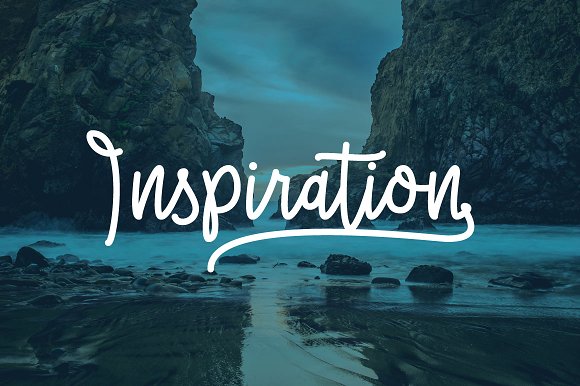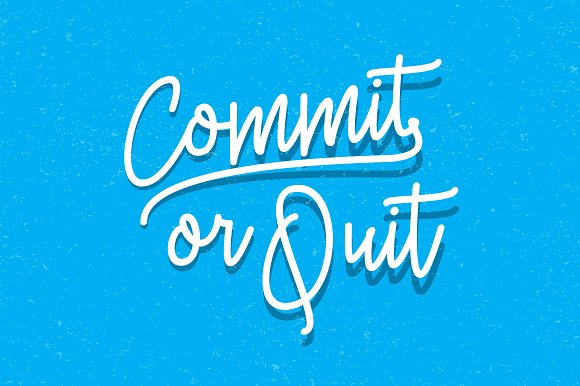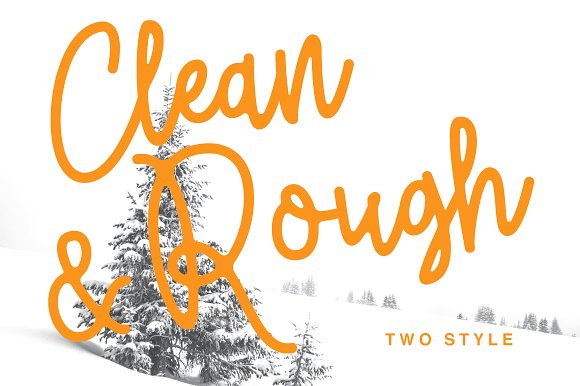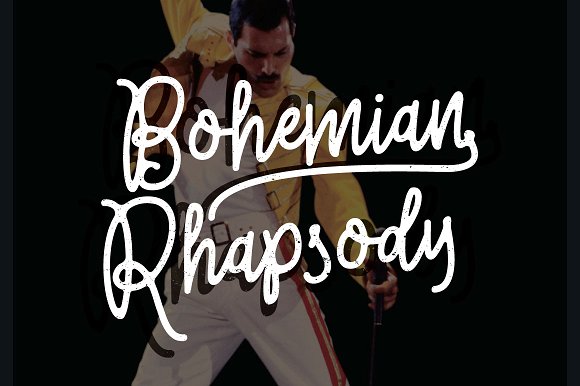
Prasto Font
About Prasto Font
Prasto is a fun modern handwritten monoline font created by Ian Mikraz.
The Prasto font comes in 2 variations: Clean & Rough.